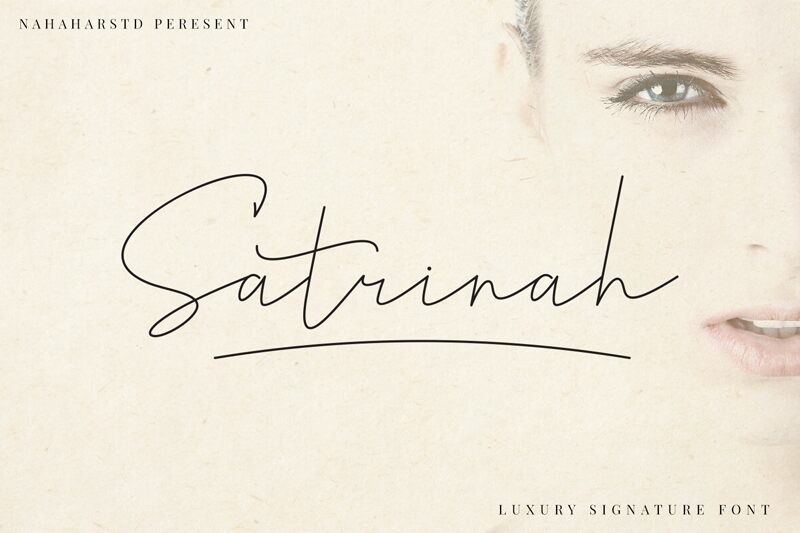
Satrinah, a luxurious signature font designed by Nanda Hardiansyah of Naharstd, is the perfect choice for projects that require an elegant and sophisticated touch. With its extra-light weight, this font conveys a sense of airy grace and delicacy, making it ideal for high-end branding, wedding invitations, and fashion editorials. Its flowing curves and elegant flourishes evoke a sense of refined beauty that will elevate any project to new heights. Whether you're designing a logo for an upscale restaurant or creating a chic magazine spread, Satrinah is the perfect choice for adding an element of luxury and refinement to your work.